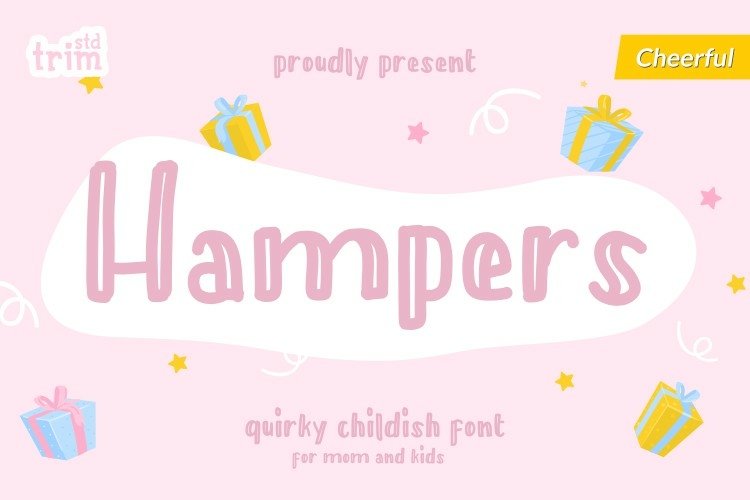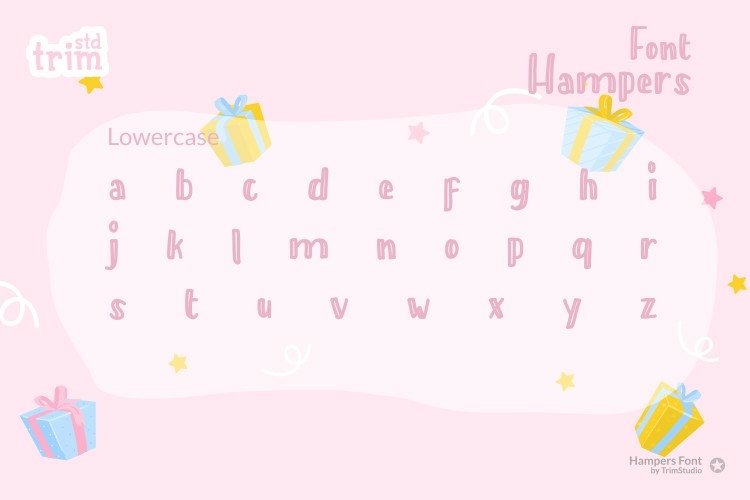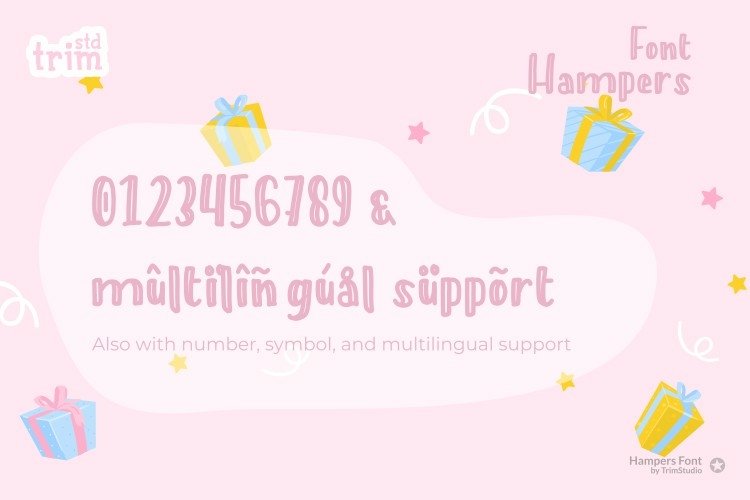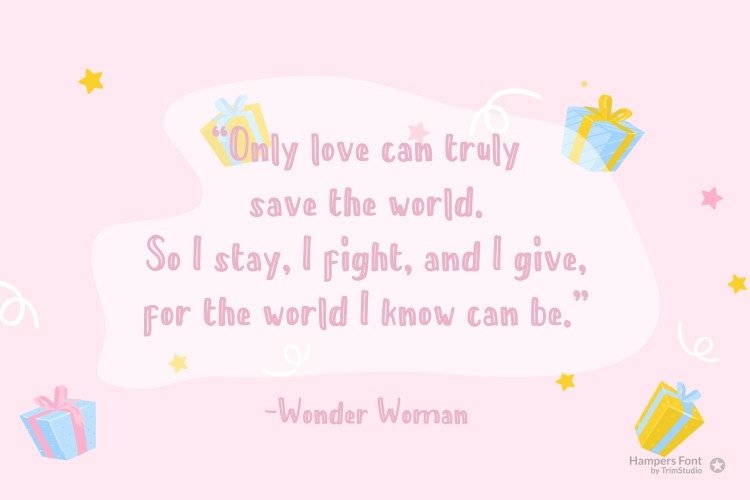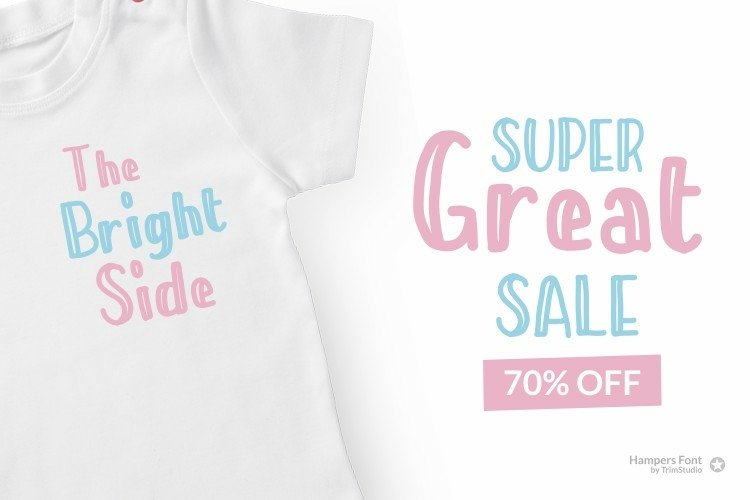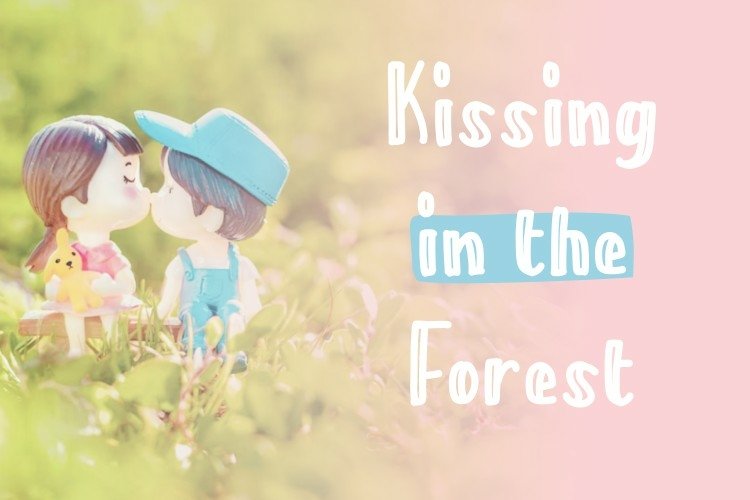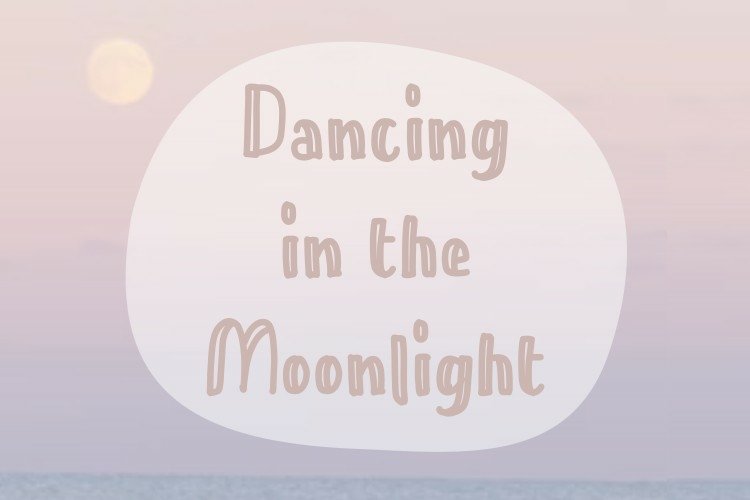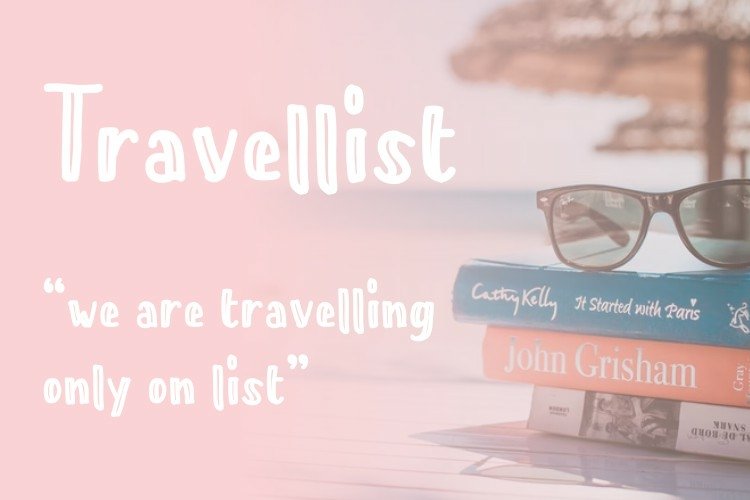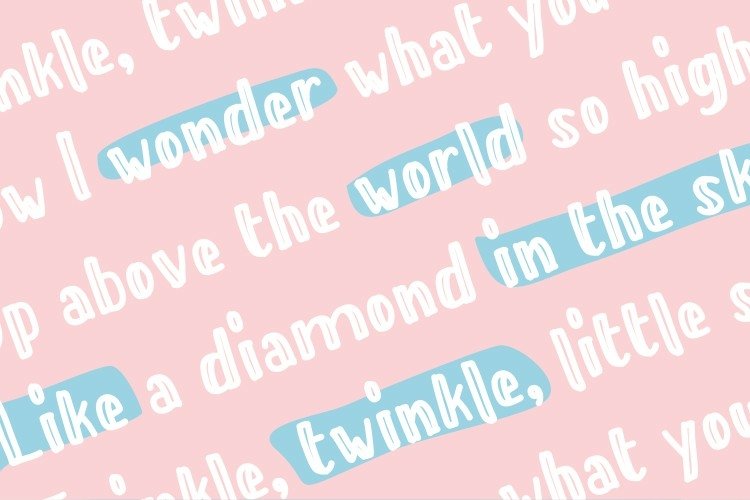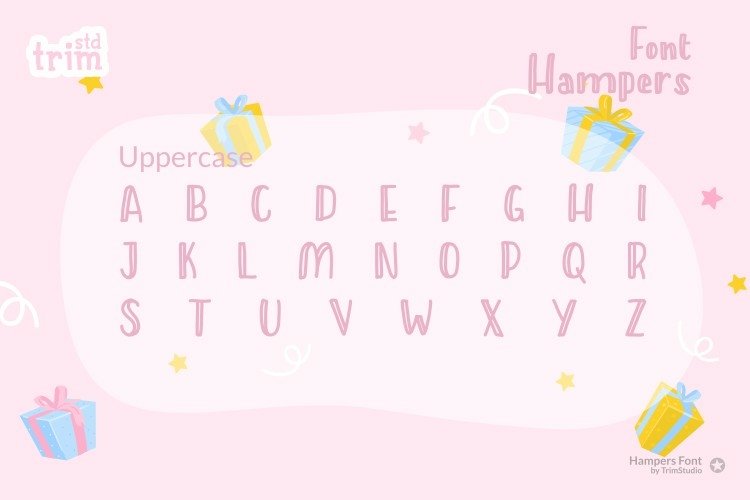
Hampers is a cute, friendly and adaptable display font. It is perfectly suited for crafters and graphic artists. Add it to invitation, advertisement, poster, logo, birthday, product sign, and many more!